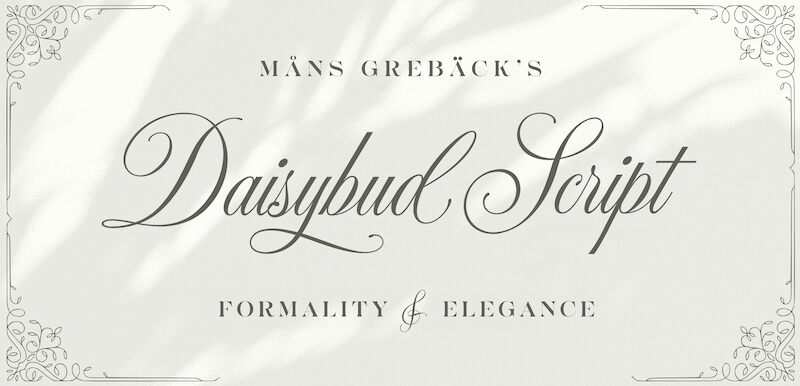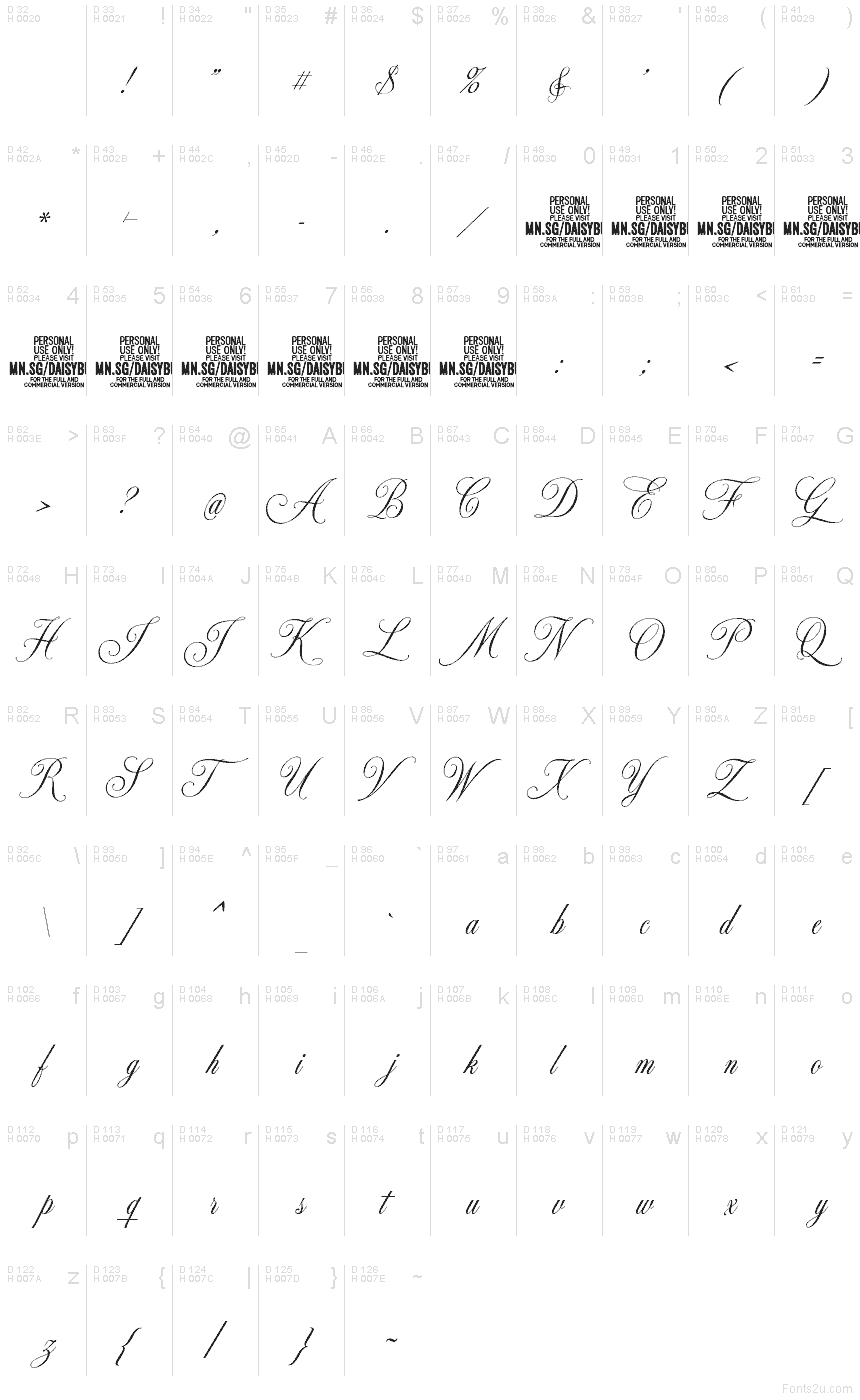
Daisybud Script font by Mans Greback is a free calligraphy font with a sophisticated and elegant vibe. The condensed typeface has an airy feel, fine lines, and swirly elements modernly complemented by flowing connections that share an intricate presence perfect for delicate headlines and decorative print presentations.
Daisybud Script font naturally elevates formal invitation cards, wedding stationery, logotype designs, posters, name tags or badges, greeting cards in calligraphic style to jewelry branding and packaging. Social media visual posts can also benefit from its ornamental curves gracefully intertwined.